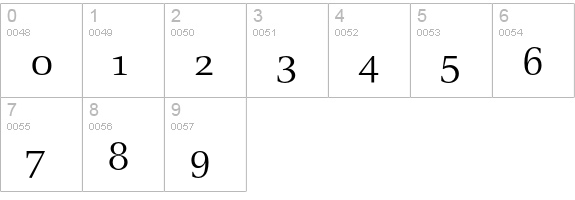
VeljovicEF-BookOsF Font Details
The VeljovicEF-BookOsF font is a visually stunning typeface that exudes elegance and sophistication. Its sleek and modern design makes it perfect for a wide range of applications, from branding and advertising to editorial and web design. With its balanced proportions and clean lines, VeljovicEF-BookOsF brings a sense of professionalism and refinement to any project. The attention to detail in every glyph is evident, with carefully crafted letterforms that enhance readability and legibility. What's even better is that VeljovicEF-BookOsF is not only a remarkable font but also free to download. Thanks to FontsMarket.com, this incredible typeface is readily available to designers and typographers who are looking to elevate their work without breaking the bank. Whether you're designing a logo for a high-end fashion brand or creating a beautifully laid-out magazine spread, VeljovicEF-BookOsF has the versatility to meet your needs. Its extensive character set includes a variety of diacritics and ligatures, allowing for seamless integration in multilingual projects. Don't miss out on this exceptional font. Download VeljovicEF-BookOsF for free at FontsMarket.com and experience the power and beauty it brings to your designs.